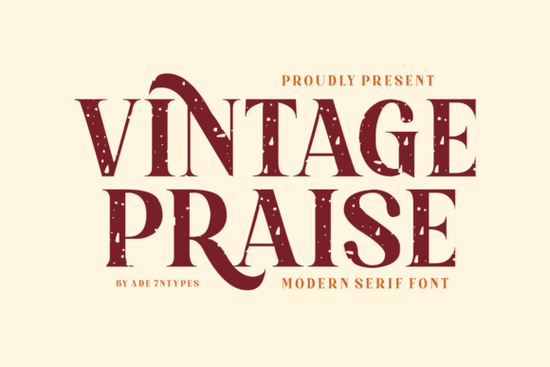
Finding the right serif font can make or break a branding project. Vintage Paise Font is a serif typeface that blends classic elegance with a clean, modern feel making it a strong choice for logos, packaging, editorial layouts, and more. If you've been searching for a typeface that feels polished without being stuffy, this one deserves a closer look.
Designed with intricate ligatures and refined detailing, it works across a wide range of creative projects. Whether you're a print-on-demand seller updating your shop branding or a small business owner designing menus and signage, the vintage serif style offers a look that's both timeless and versatile.
What makes this font different from other serif typefaces?
Plenty of serif fonts lean heavily into either a traditional or modern aesthetic. Vintage Praise Font sits right in the middle. It carries the warmth and character of vintage typography think old book covers and classic letterpress but keeps things minimal enough to feel current.
Here's what stands out:
- Refined ligatures letter pairs connect smoothly, giving your text a handcrafted quality without sacrificing readability.
- Fancy alternate characters swap in decorative letterforms when you want to add flair to headlines or monograms.
- Clean spacing and proportions the font looks balanced at both large display sizes and smaller body text.
- Works across formats use it for digital designs, printed materials, and merchandise mockups alike.
Compared to options like Blades of Fortunes, which leans more dramatic and bold, or Yolane, which has a softer, more feminine character, this typeface strikes a balanced middle ground. It's elegant without being overly decorative.
What can I use Vintage Praise Font for?
This font adapts well to many different projects. Here are some common use cases that designers and creatives turn to it for:
- Logo design the serif structure gives logos a professional, established look, especially for boutique brands, bakeries, and wellness studios.
- Wedding invitations and stationery the ligatures and elegant curves work beautifully for formal event materials.
- Magazine layouts and editorial design it pairs well with sans-serif body fonts, creating a clean hierarchy on the page.
- Print-on-demand products think mugs, tote bags, and greeting cards where typography is the main design element.
- Social media graphics use it for quote posts, sale announcements, and branded content templates.
- Packaging and labels the vintage feel pairs naturally with artisan and handmade product branding.
For crafters who sell on Etsy or run small shops, a font like this can tie together your entire visual identity from your logo to your thank-you cards.
Does it pair well with other fonts?
Yes. A good serif font should work alongside other typefaces without competing for attention. Vintage Praise Font pairs nicely with simple sans-serifs for body text. You could also combine it with a complementary serif for a layered, editorial look.
If you're building a font pairing collection, consider also looking at Kayana it has a distinct personality that works well in combination with more understated serifs. Having a few versatile serif options on hand means you can adapt your designs to different client needs or seasonal campaigns without starting from scratch.
How do I get the most out of this font?
A few practical tips to keep in mind:
- Use alternates intentionally. The decorative characters are great for headlines and logos, but they can be hard to read in long paragraphs. Save them for display use.
- Test at multiple sizes. Fonts can look very different at 24pt versus 72pt. Always preview your text at the size it will appear in the final design.
- Experiment with letter spacing. A little extra tracking (space between letters) can make serif fonts look more modern and airy.
Is this font right for your next project?
If your work calls for a typeface that feels refined but not outdated, Vintage Praise Font is worth trying. It handles everything from luxury branding to everyday design projects with ease and the built-in ligatures and alternates give you creative flexibility that simpler serif fonts don't offer.
- ✅ Check which design software supports OpenType features (Adobe Illustrator, Photoshop, Affinity Designer, and Canva Pro all do)
- ✅ Save alternates and ligatures for headlines, logos, and hero text